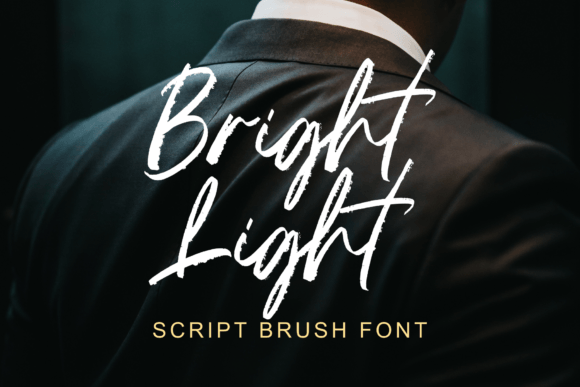
The Bright Light Font: A Designer’s New Best Friend
I’ll never forget the time I was working on a branding project for a trendy new coffee shop. I had the logo concept nailed, but I just couldn’t find the right font to bring it all together. The client wanted something elegant, yet playful; something that would make their brand stand out on a crowded high street. That’s when I stumbled upon the Bright Light font. It was love at first sight! 💫
An Honest Review of Bright Light Font
- 💫 Elegant, handwritten script brush font that’s perfect for branding and logotypes
- 🎨 Suitable for a wide range of creative projects, from apparel to product packaging
- 📸 High-quality, professional look that’s sure to impress clients
- ✅ Extensive OpenType features, including glyphs and stylistic alternates
While Bright Light is an amazing font, there are a few things to keep in mind. For example, some of the more intricate swashes and flourishes can get a bit lost at smaller font sizes. And, as with any script font, it can be a bit tricky to use in large blocks of text. But, with a little creativity and experimentation, these limitations are easy to work around.
- 🤔 May require some manual kerning and adjustment for optimal results
- ⚠️ Not ideal for body text or long-form writing
The Story Behind Bright Light Font
Bright Light was designed by a talented typographer who wanted to create a font that would capture the essence of elegance and sophistication. With its beautiful brushstrokes and flowing script, Bright Light is the perfect choice for designers who want to add a touch of luxury to their work.
Q: Is Bright Light suitable for body text?
While Bright Light is a beautiful font, it’s not ideal for body text or long-form writing. It’s best used for headlines, titles, and short blocks of text where you want to make a statement.